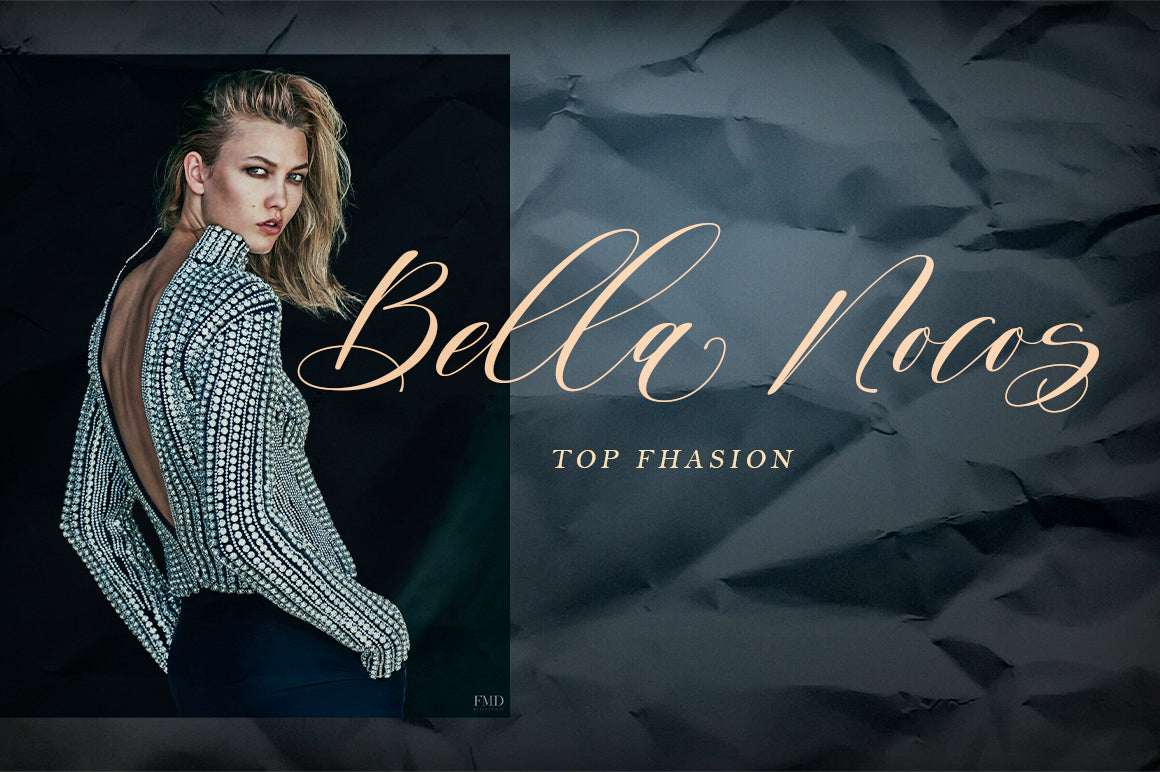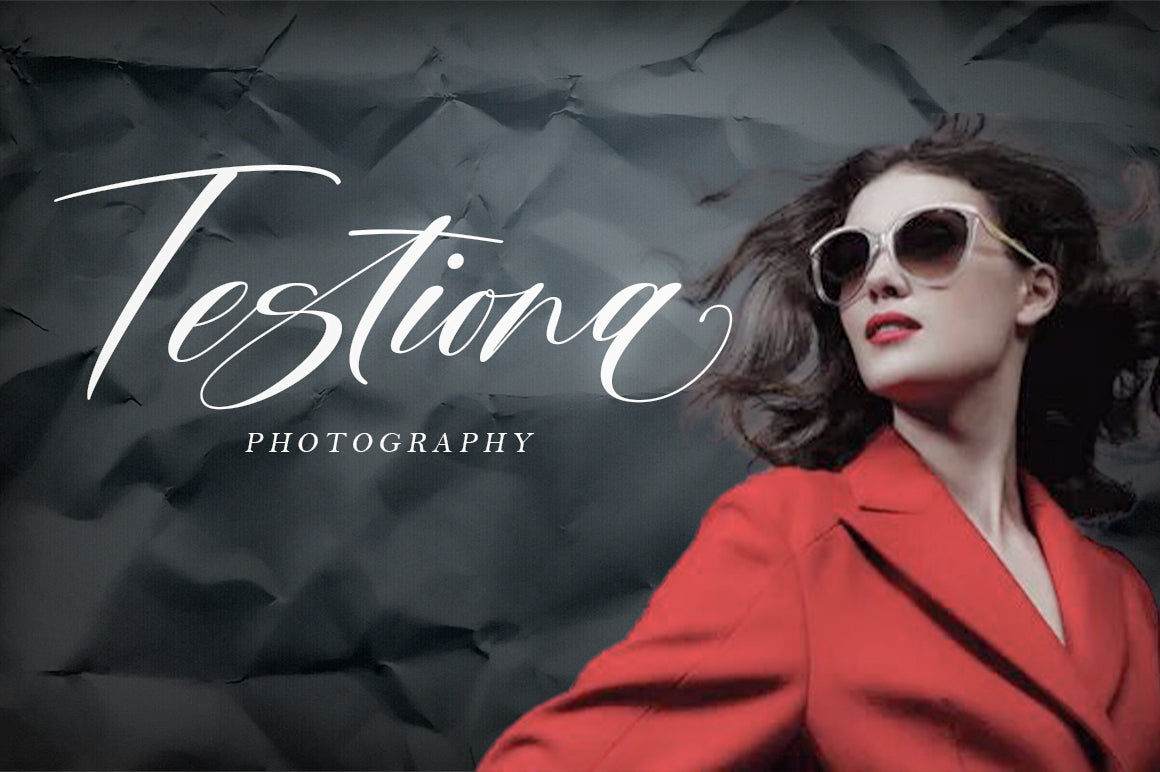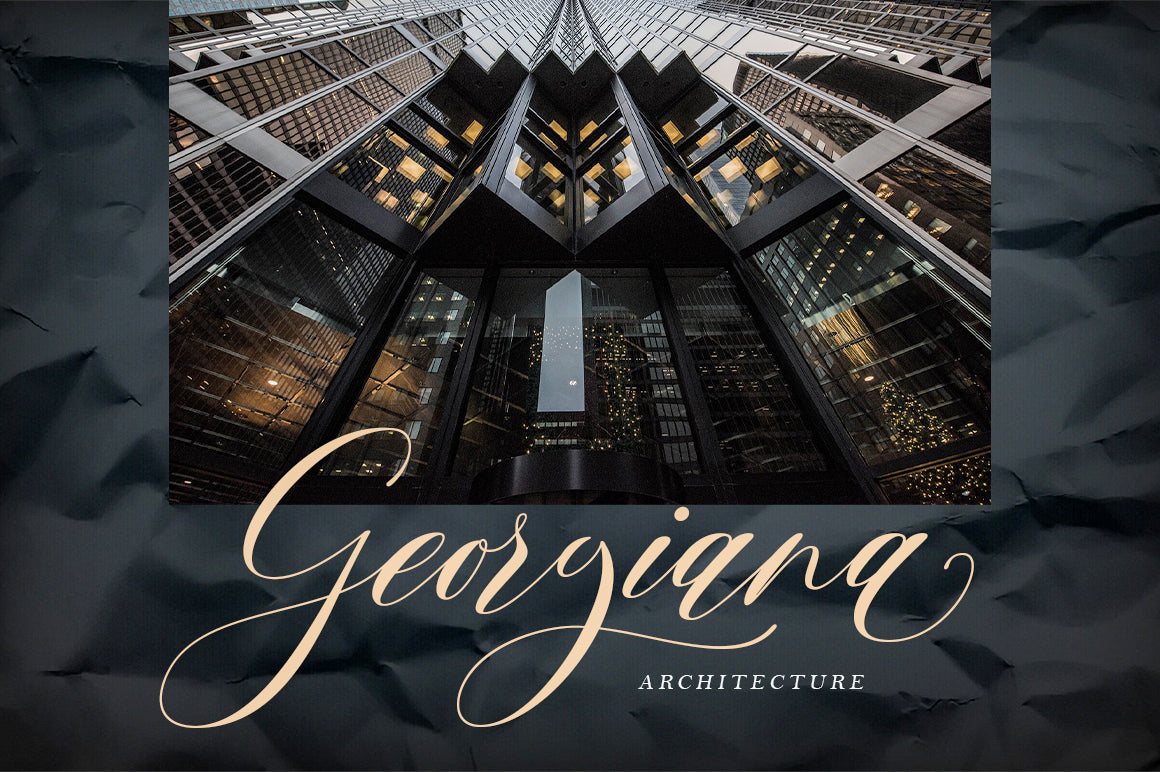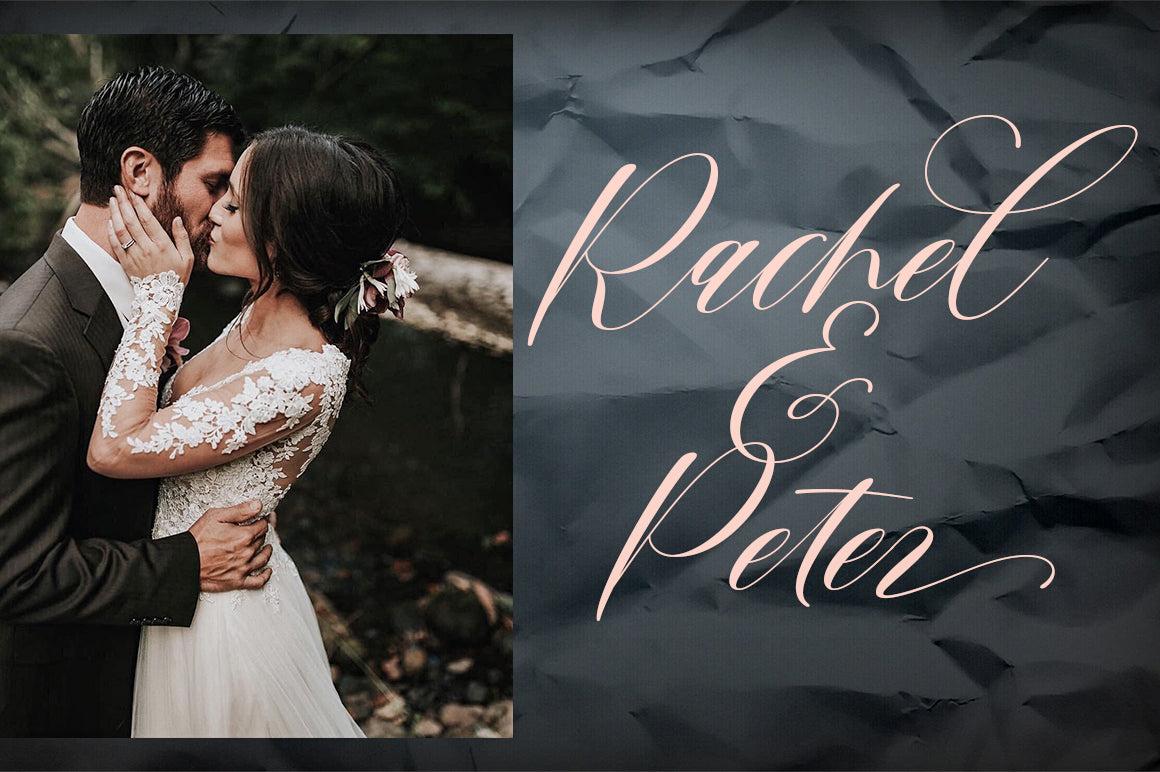
Sogestina
About Sogestina
Sogestina is a unique and playful handwritten font with a modern vibe. Get inspired by its authentic charm and use it to create gorgeous designs! This font is PUA encoded which means you can access all of the glyphs and swashes with ease!